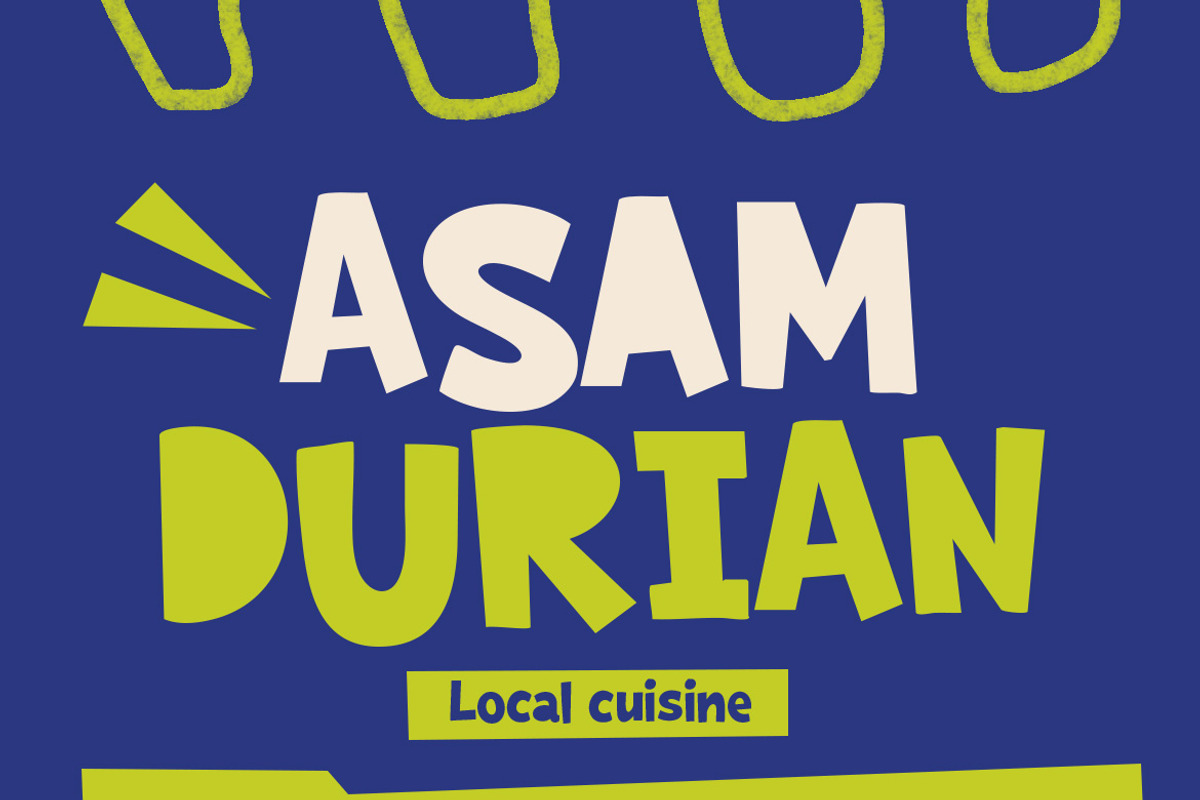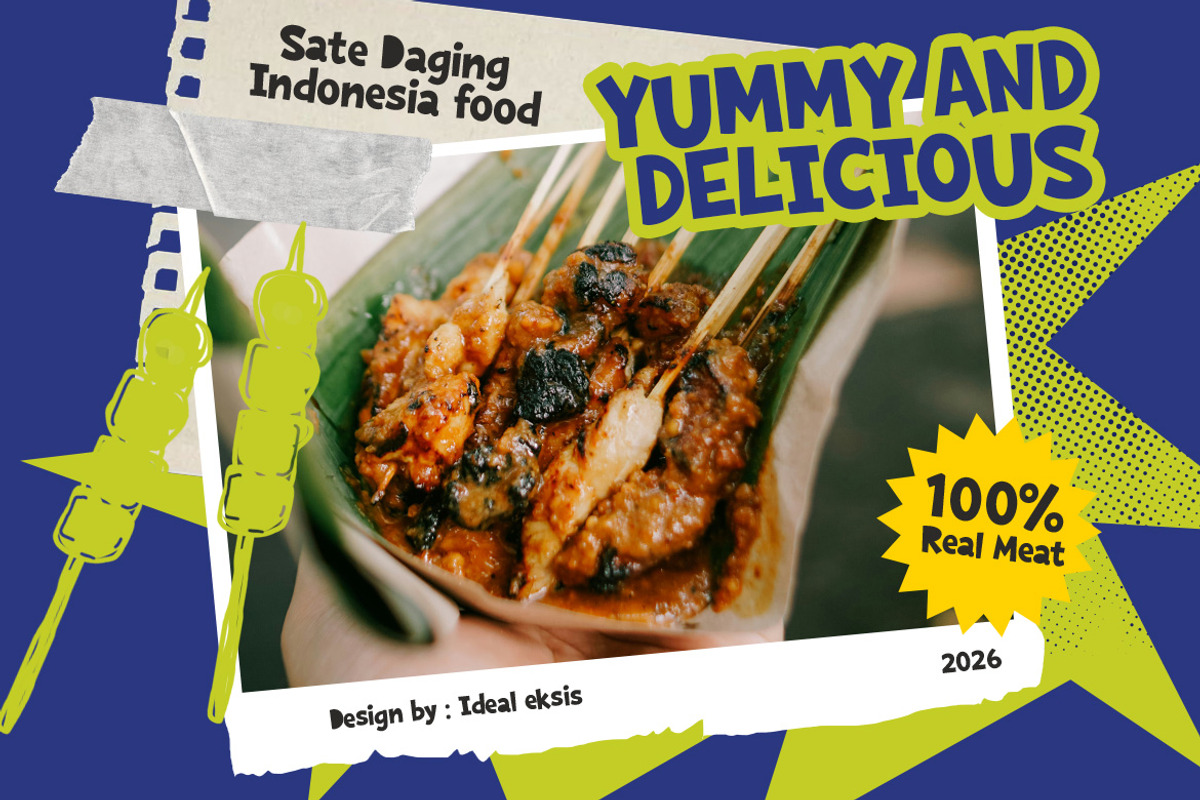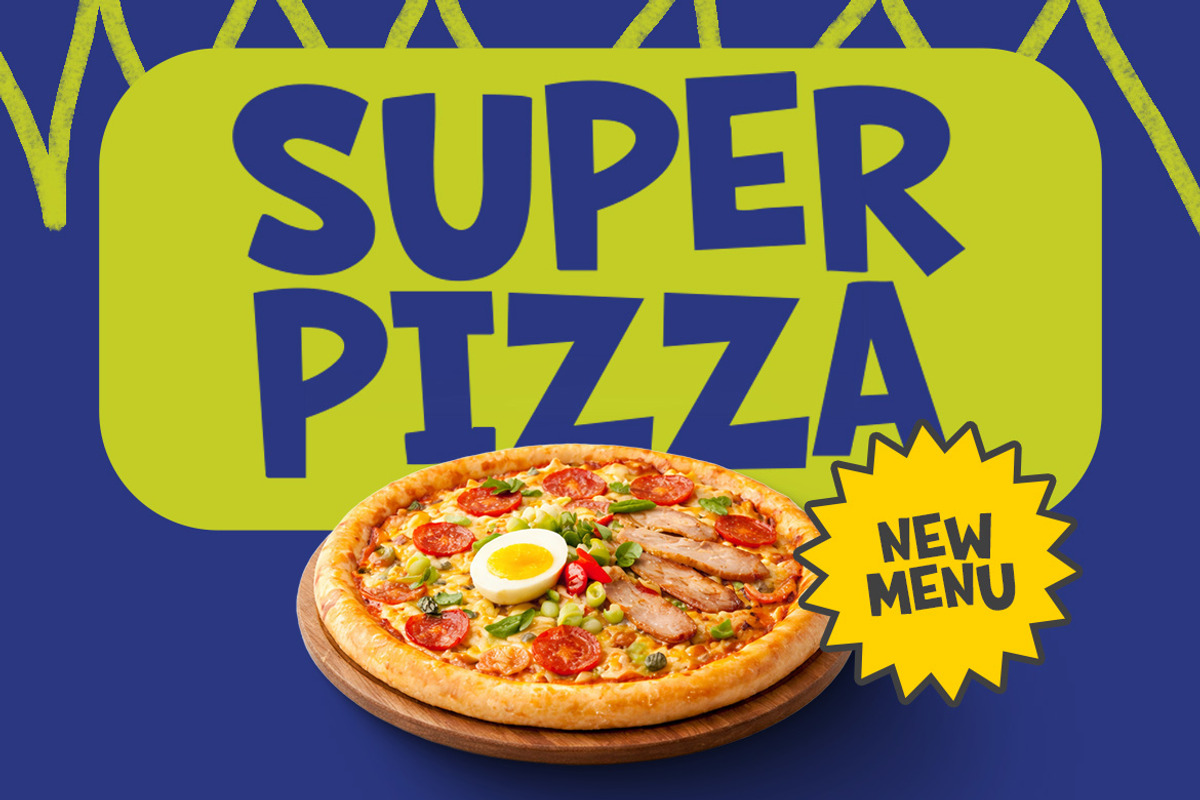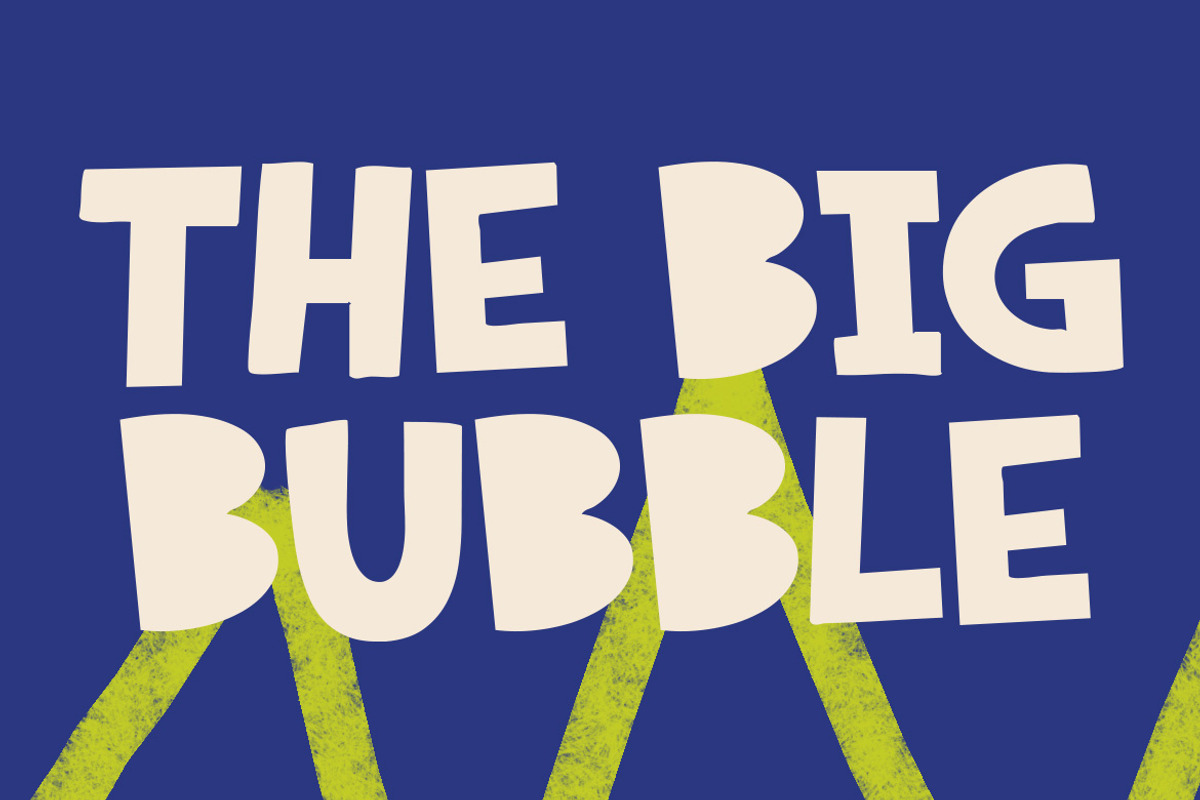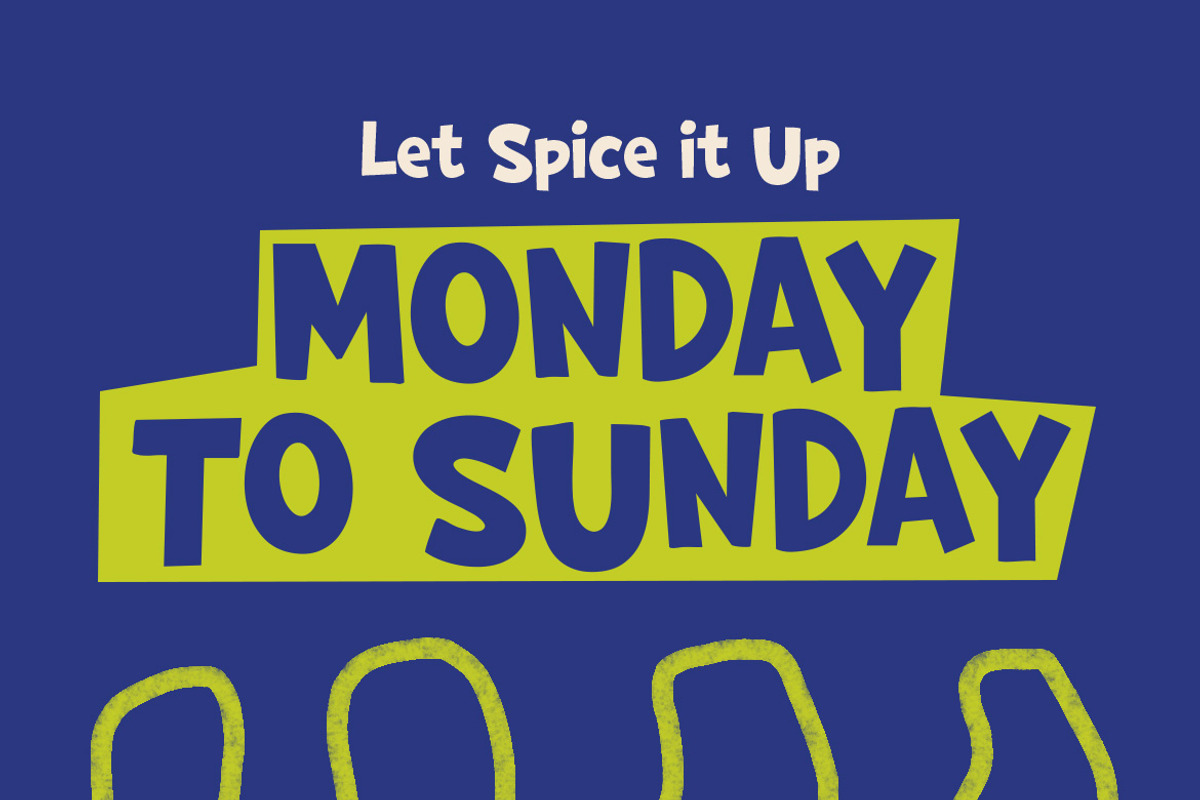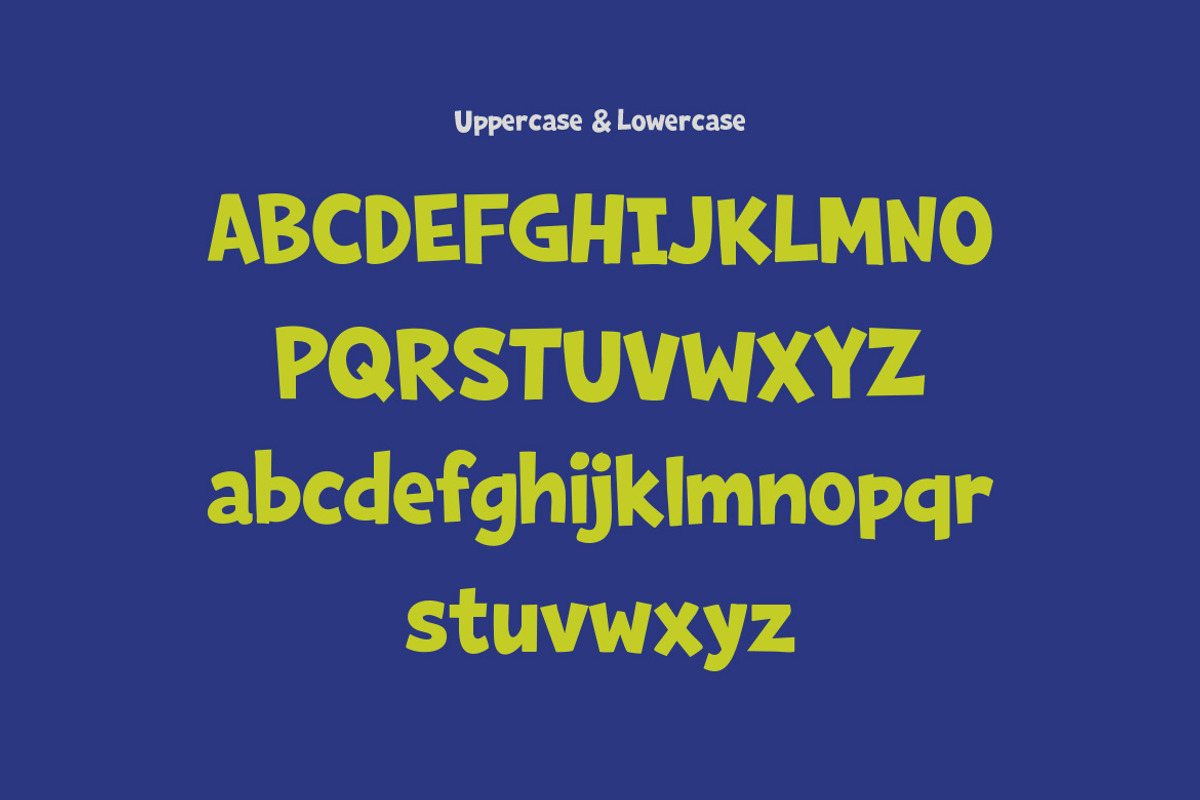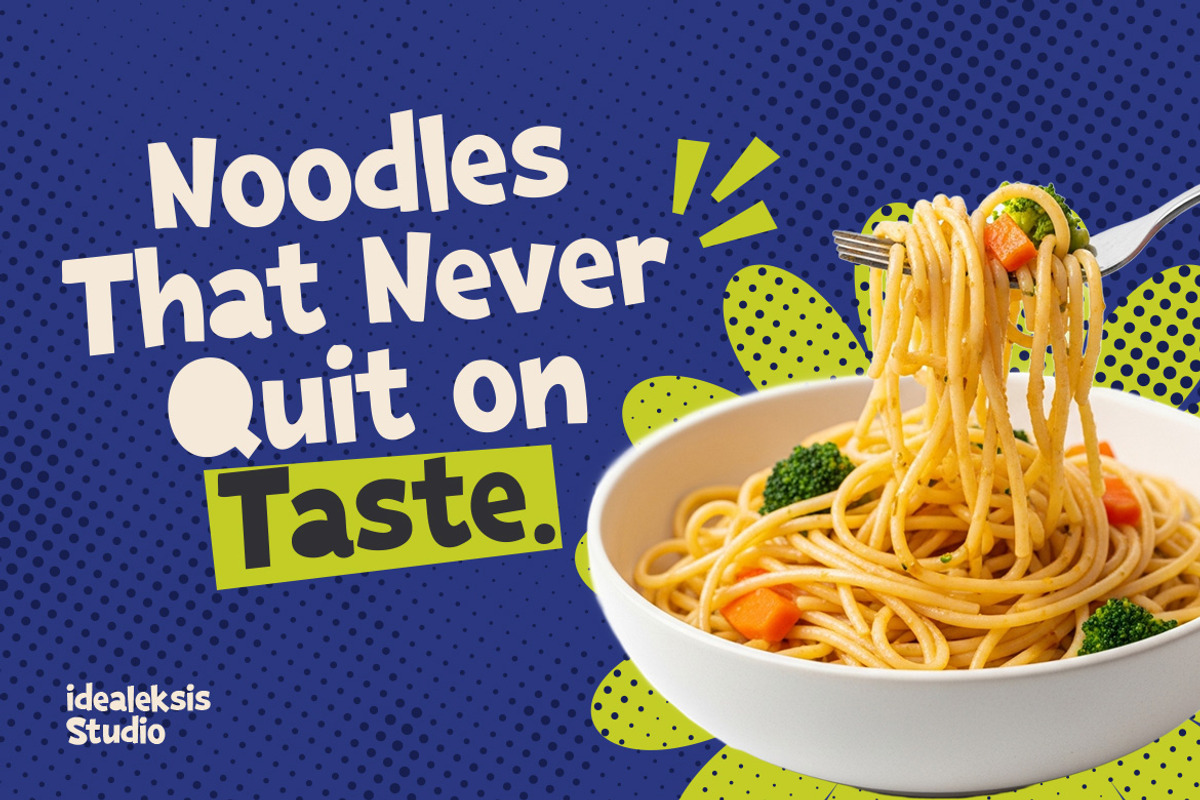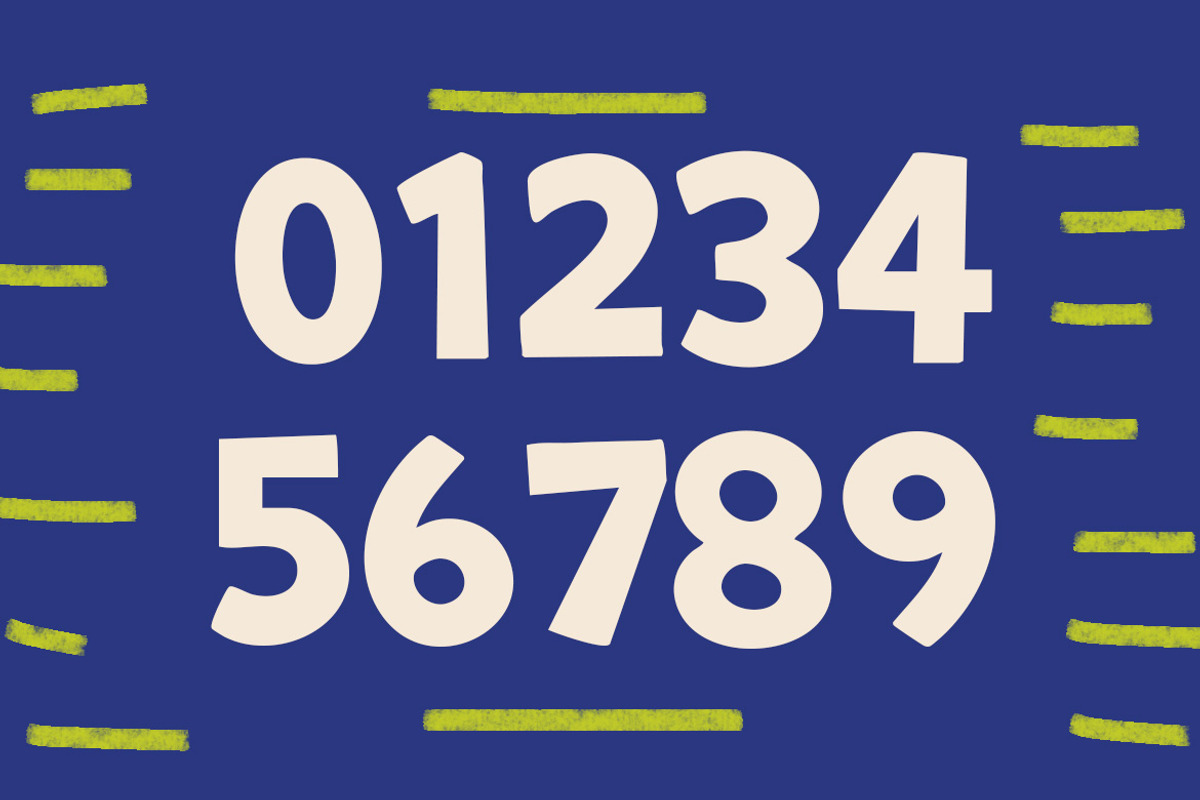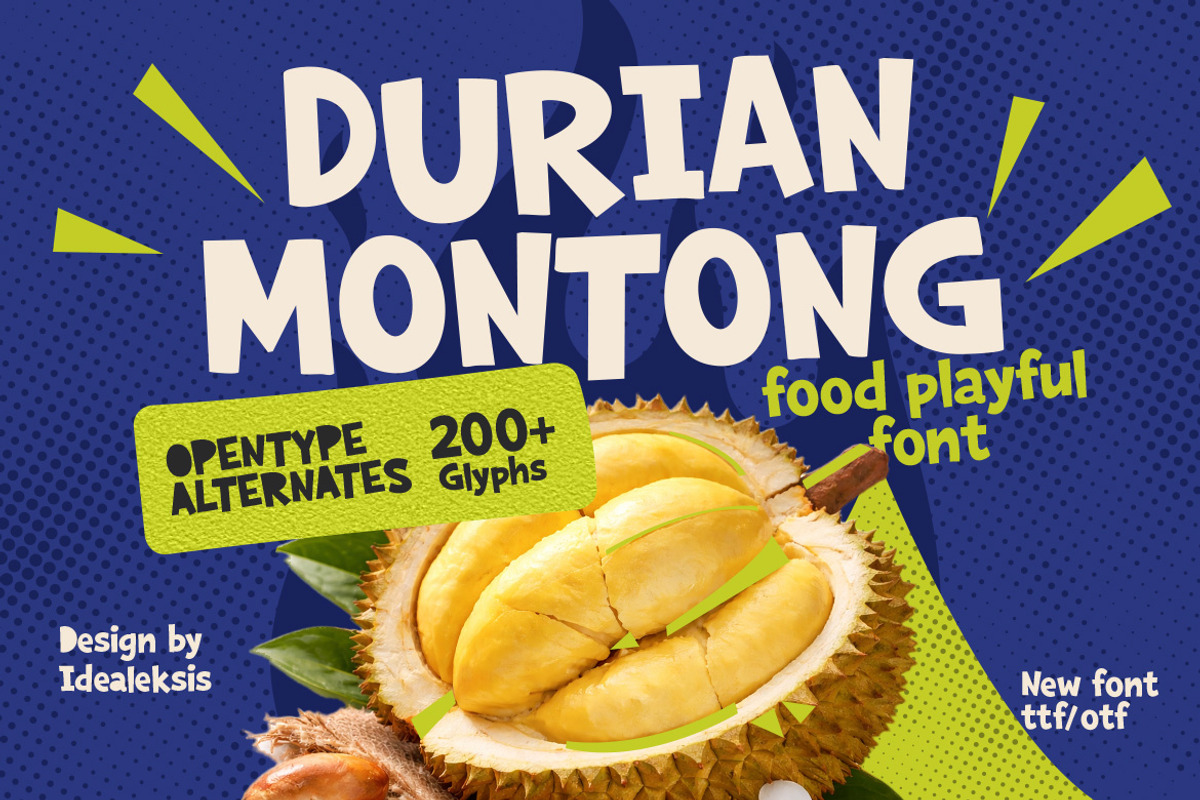
Durian Montong - Food Font
Durian Montong is a bold and energetic display font characterized by its chunky, irregular letterforms and hand-drawn aesthetic. The font features heavy weights with thick strokes and rounded terminals, creating a friendly and approachable feel. Its bouncy baseline and varied glyph widths contribute to a dynamic, organic rhythm that mimics spontaneous lettering.
Lowercase
Alternate
Numerals
PERFECT FOR
Bakery and café branding
Food and beverage logos
Restaurant menus and signage
Coffee shop and donut shop designs
Food packaging and labels
Social media food promotions
Kitchen-themed posters and prints
Culinary blogs and recipe graphics